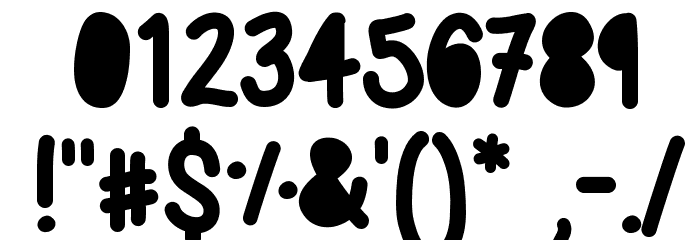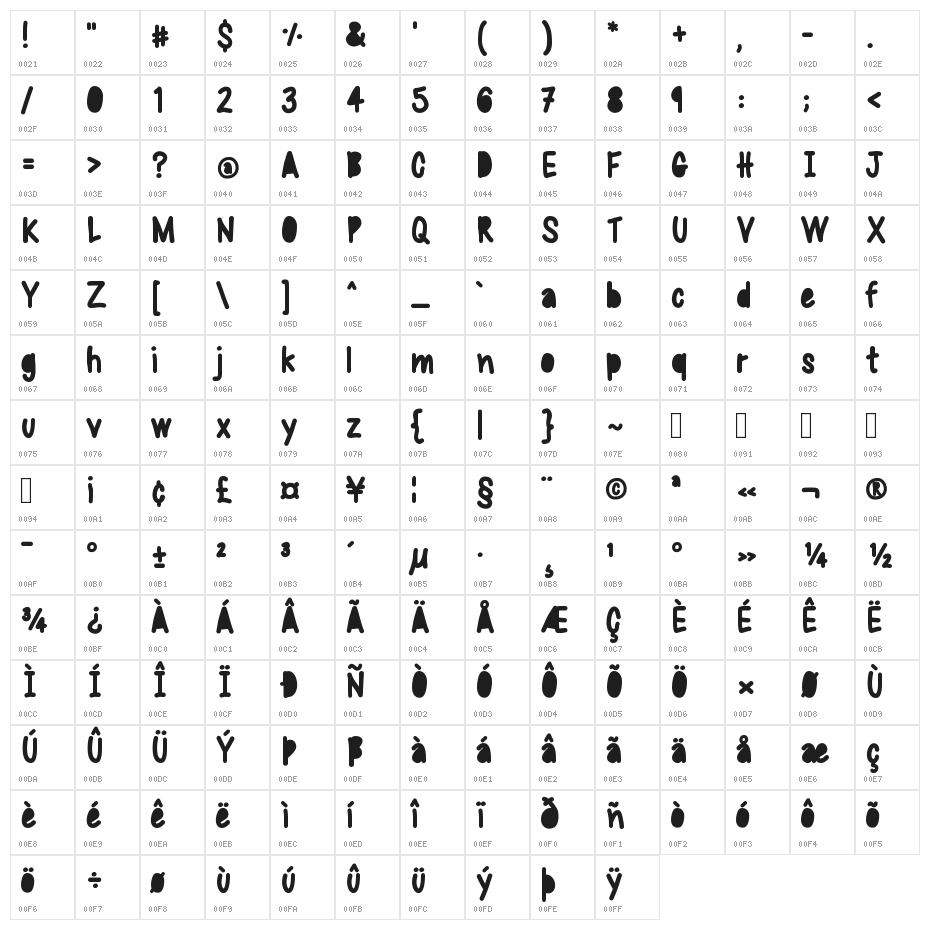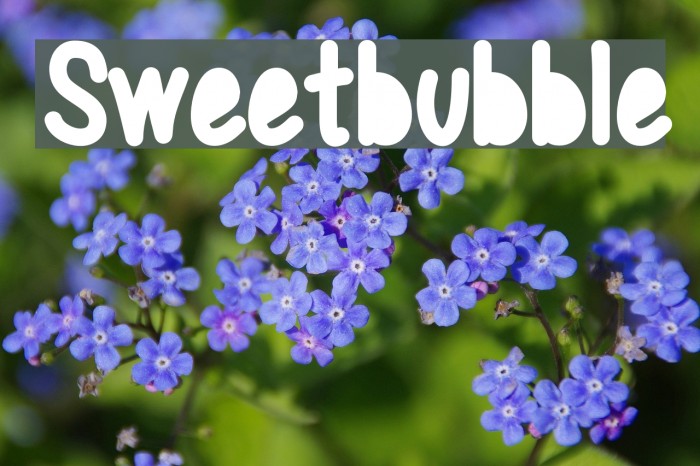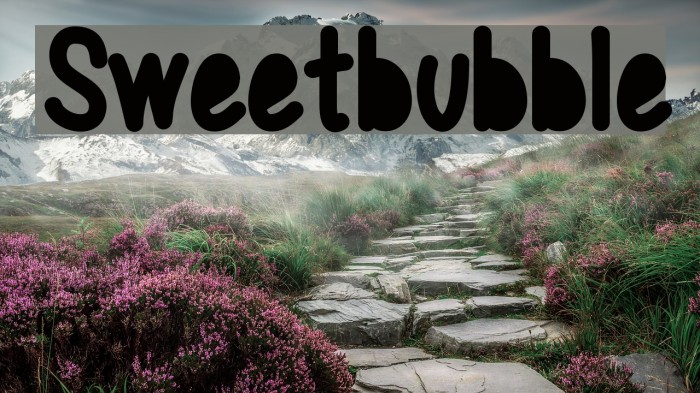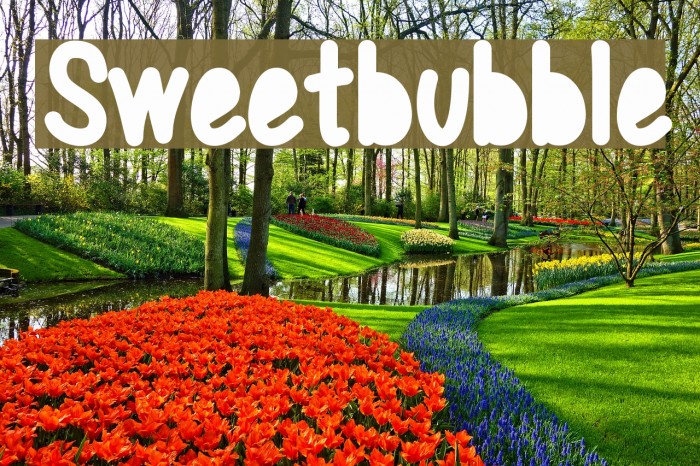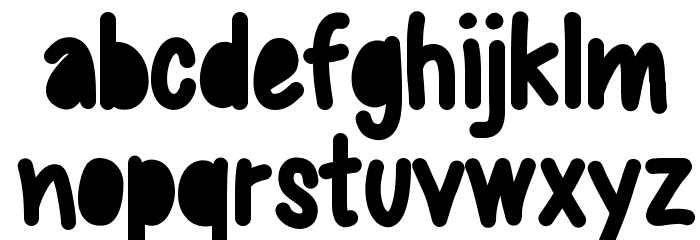
Sweetbubble Font
Sweetbubble Description
This playful and bold font features a bubbly, rounded style that exudes a sense of fun and whimsy. The uppercase and lowercase letters are characterized by their thick, uniform strokes and slightly irregular shapes, giving the font a hand-drawn appearance. The numbers and special characters maintain the same playful aesthetic, ensuring consistency across all text elements. The font's overall look is both approachable and energetic, making it ideal for projects that aim to convey a sense of joy and creativity.